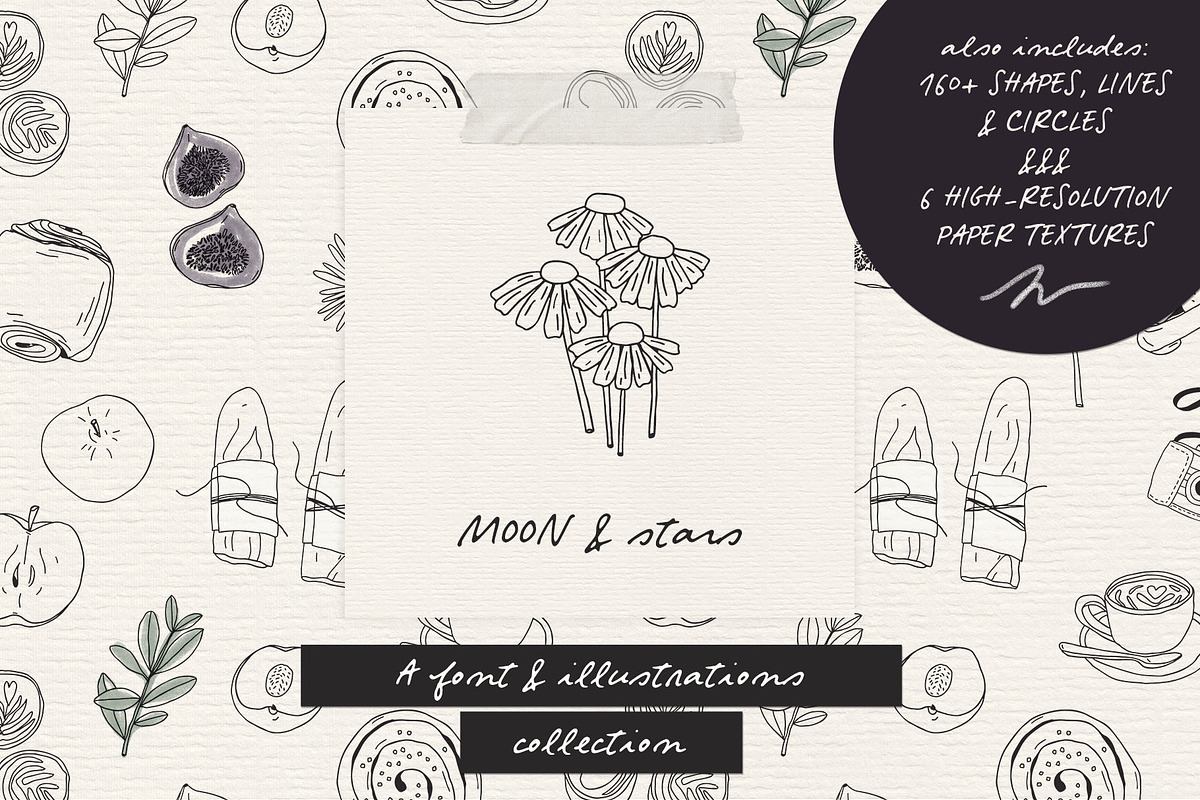
Moon and Stars Font & Illustrations Free Download is a whimsical and enchanting typeface paired with beautifully crafted illustrations, designed to add magic and charm to your designs. Featuring a celestial theme, this font and set of illustrations is perfect for creating dreamy logos, invitations, greeting cards, posters, and more. The font’s elegant curves and the mystical illustrations of moons and stars bring a sense of wonder to any project. Whether you’re designing for a fantasy-themed event, a mystical brand, or creating personalized content, Moon and Stars Font & Illustrations Free Download lets you explore its magical charm in personal projects before purchasing a commercial license. Add a touch of whimsy and elegance to your designs with this stunning font and illustration set.